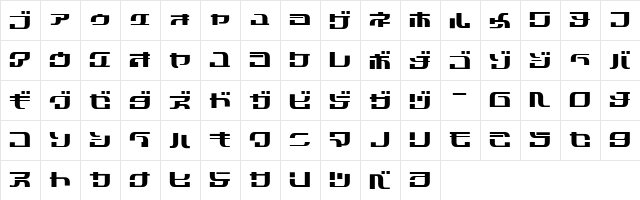
Cobra3 KN Font Preview
Cobra3 KN
Cobra3 KN Font Details
Design Context for Cobra3 Typeface
Cobra3 offers clean, dependable letterforms without strong stylistic allegiance, making it a practical choice for designers who need flexibility.